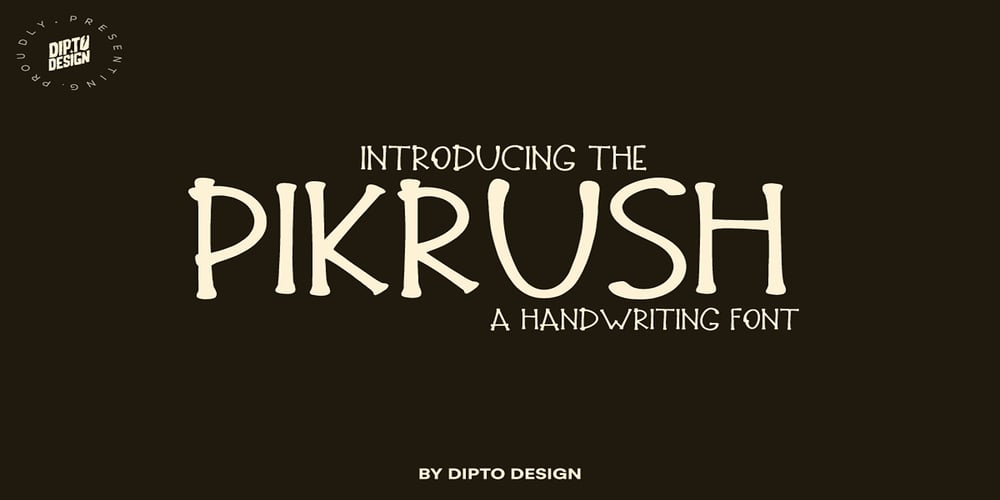
PikRush
PikRush font
PikRush Font Family was designed by Dipto Das and published by Creative9. PikRush contains 1 styles and family package options. Introducing “Pikrush” – a vibrant handwriting font exuding spontaneity. With font files, and PNGs in a ZIP, it’s perfect for stylish branding. Embrace its dynamic energy and personalize your designs effortlessly!The font files provide versatility and compatibility across various platforms and applications, allowing you to use “Pikrush” with ease. Whether you’re designing branding materials, apparel, or digital assets, “Pikrush” offers the versatility and authenticity needed to elevate your Nike-inspired projects.